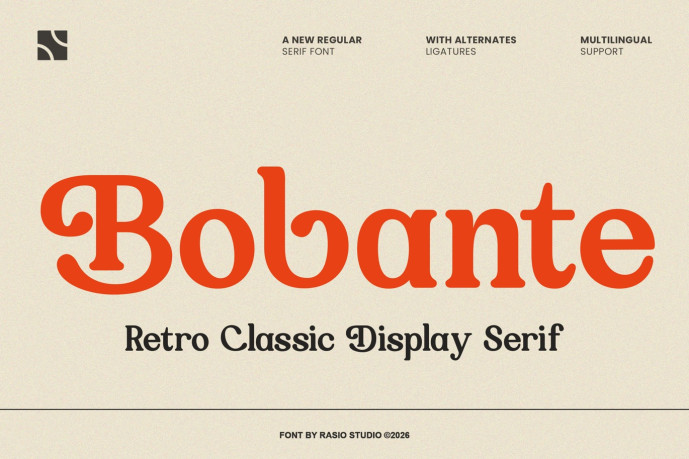
Bobante Retro Classic Display Serif Font
Bobante Retro Classic Display Serif Font is a retro classic display serif typeface that captures the warmth and charm of vintage typography with a refined contemporary finish. Inspired by mid-century advertising, nostalgic editorial design, and timeless print craftsmanship, the font features bold serif construction, soft rounded terminals, and graceful curves that create an inviting yet confident visual personality. Its distinctive character makes every headline feel memorable while maintaining excellent readability. Whether used for logos, packaging, magazine headlines, or promotional campaigns, the typeface delivers a nostalgic atmosphere while remaining clean and versatile for modern design.
Designed with balanced proportions and carefully crafted details, Bobante combines traditional serif elegance with playful retro influences. The font includes stylistic alternates and ligatures that allow designers to create expressive wordmarks and custom typography with a natural, handcrafted appearance. Bobante is ideal for branding projects, vintage branding, boutique businesses, cafés, bakeries, restaurants, artisan products, fashion labels, beauty brands, editorial publications, magazines, book covers, premium packaging, greeting cards, invitations, posters, logo design, social media campaigns, advertising materials, merchandise, creative agencies, and designers looking for a classic display serif that combines nostalgic elegance with modern functionality.
Standard Ligatures & Alternate